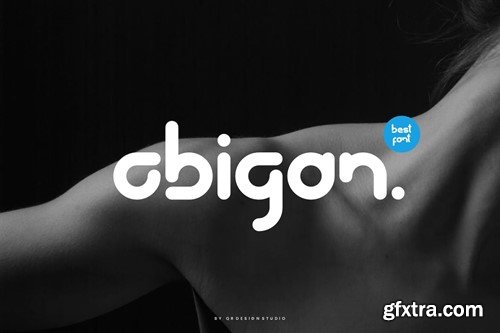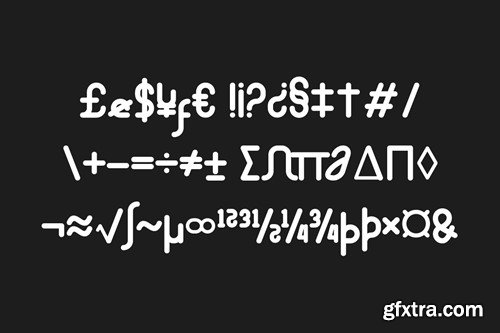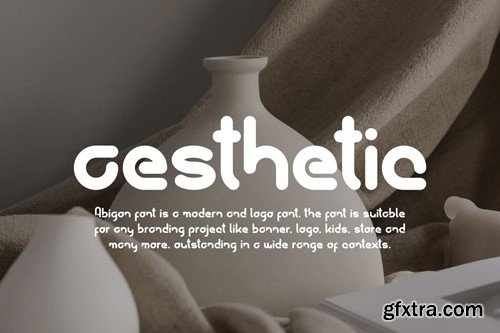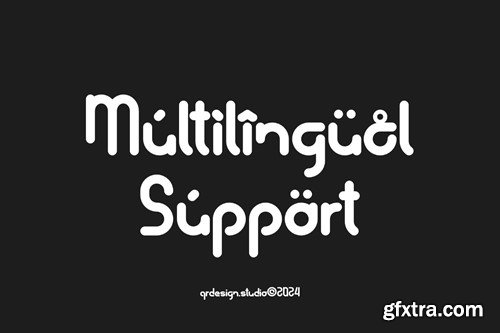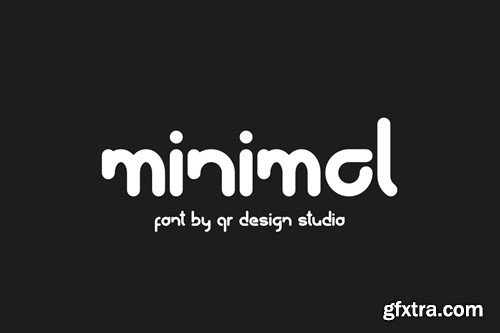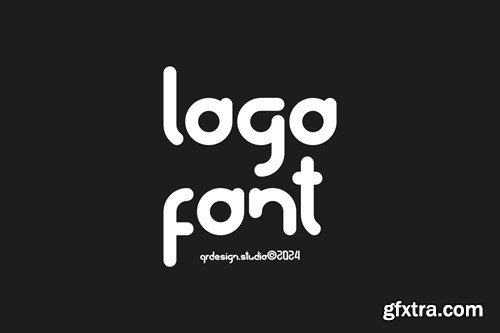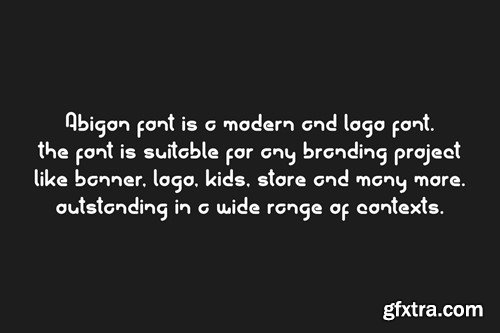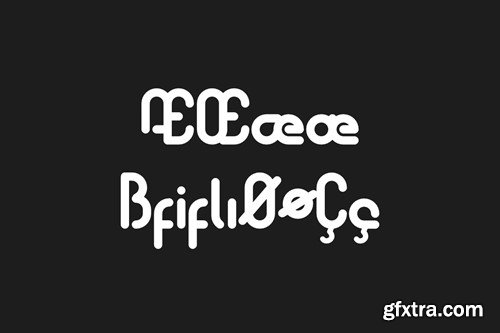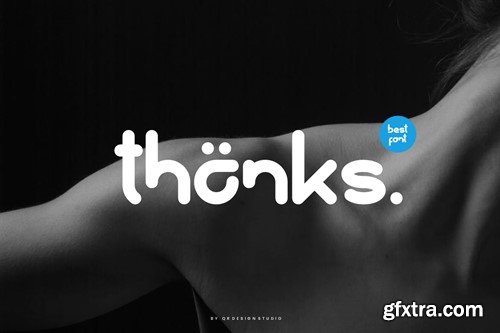
阿比冈 - 现代简约字体 K42ZXL9
Abigon - Modern Minimal Font K42ZXL9
Abigon - Modern Minimal Font
Abigon Font is a sans serif and authentic display font. The font is suitable for any branding project like poster, logo, sport, and many more. Outstanding in a wide range of contexts.
Main Features
• Ligatures & Alternate
• Numeral & Punctuations
• Multilingual Support
• Extended Character Set